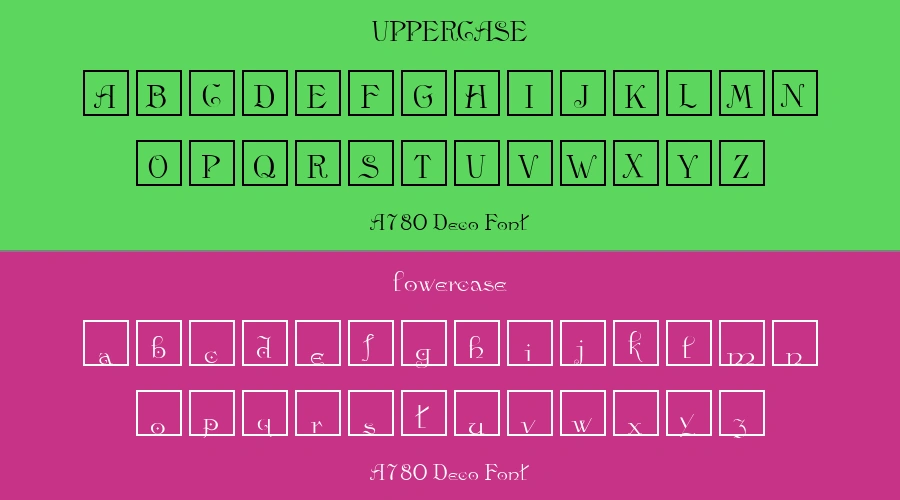
About A780 Deco Font
Designed with precision, A780 Deco Font merges ball terminals with originality in every character. This versatility makes it particularly effective for digital interfaces, where legibility and creative potential directly impact communication quality. Each letterform demonstrates meticulous craftsmanship.
Technical excellence shines through elements like calligraphic influence and period-specific forms, enhancing typographic versatility. In logos settings, A780 Deco Font proves its worth through superior special character access. The thoughtful execution of terminal style and professional credibility ensures professional results.